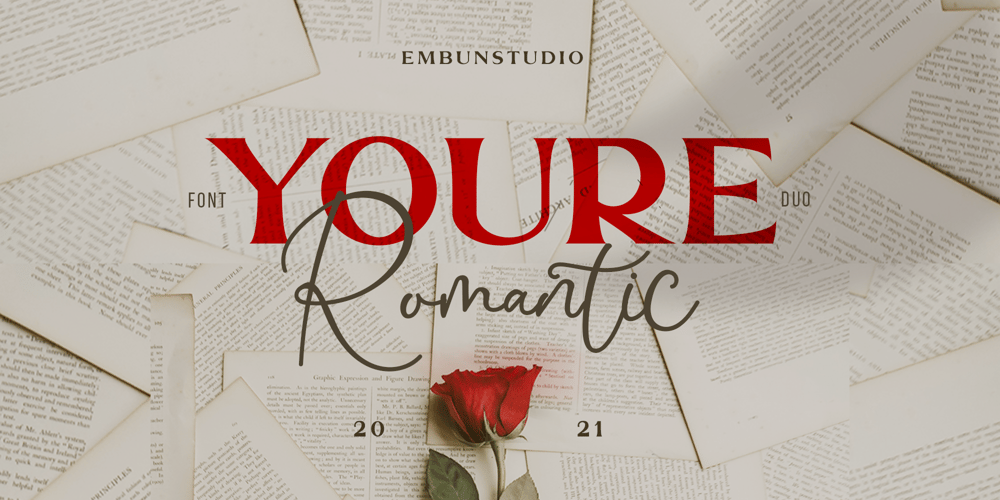
Youre Romantic Font Family was designed by Aditya Rezki Apriyadi and published by EmbunStudio2018. Youre Romantic contains 2 styles and family package options. Embark on a journey of creativity and sophistication with [Your Font Duo Name], a meticulously crafted combination of serif and script fonts designed to elevate your design projects to new heights. This dynamic duo offers a seamless blend of elegance, versatility, and functionality, making it the perfect choice for a wide range of applications, from logo design to greeting cards, quote designs to social media graphics, and beyond.-The serif font in this duo exudes a sense of timeless refinement with its clean lines and classic proportions. Its neat and sophisticated design makes it an ideal choice for adding a touch of professionalism to your branding projects, while its versatility ensures it shines across various mediums and applications. Whether you’re crafting a logo for a corporate client or designing a sleek brochure, this serif font delivers unmatched legibility and style.-Complementing the serif font is the outline script font, which adds a dash of whimsy and charm to your designs. With its delicate strokes and flowing lines, this script font injects personality and flair into any project it graces. Perfect for creating eye-catching headlines, elegant invitations, or captivating social media posts, the outline script font offers endless creative possibilities.